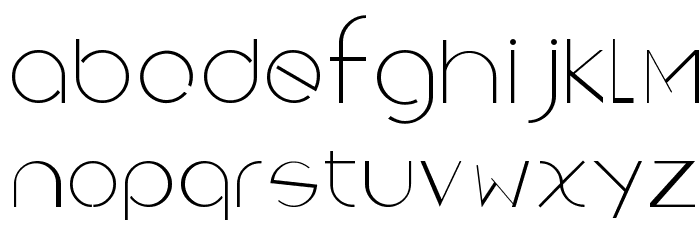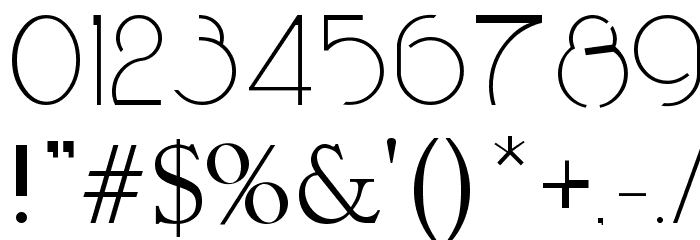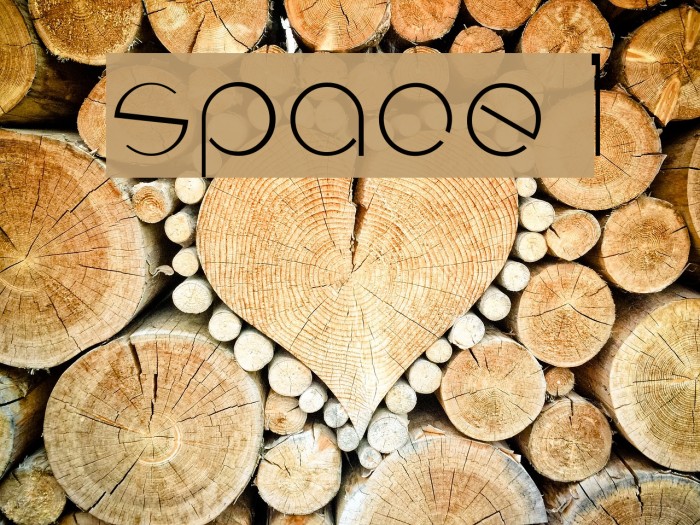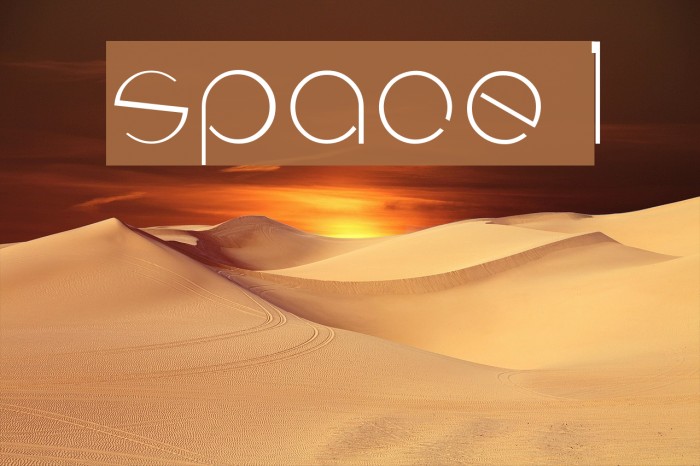
space 1 Font
This font features a sleek, geometric design with a modern aesthetic. The characters are composed of clean lines and curves, creating a futuristic and minimalist appearance. Uppercase and lowercase letters maintain a consistent style, with some unique elements such as the open loop in the lowercase 'a' and 'g'. The numerals are equally stylish, with a uniform height and width that complements the overall design. Special characters are integrated seamlessly, maintaining the font's cohesive look.
A modern, geometric font with a sleek and minimalist design.
- Proposed Projects: Ideal for tech branding, futuristic posters, modern web design, and minimalist logos.